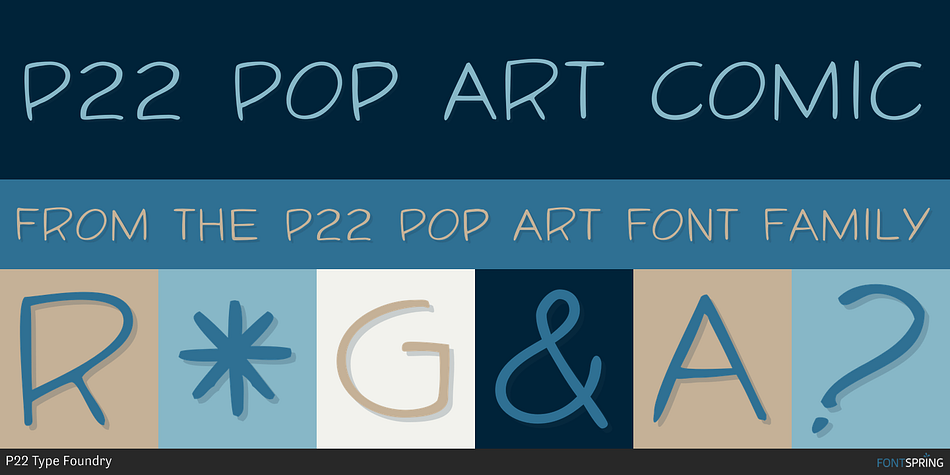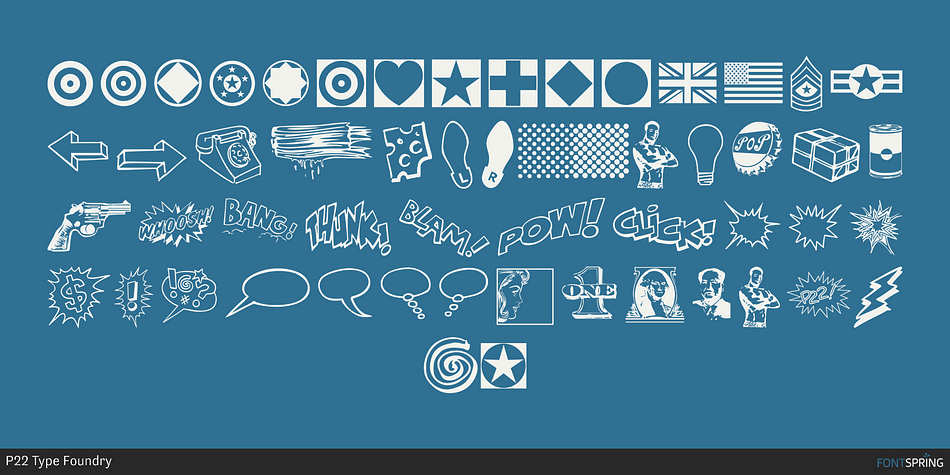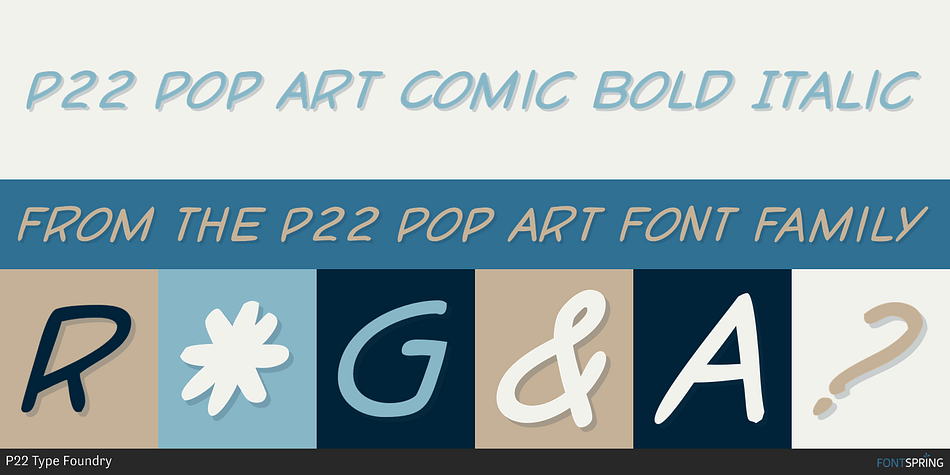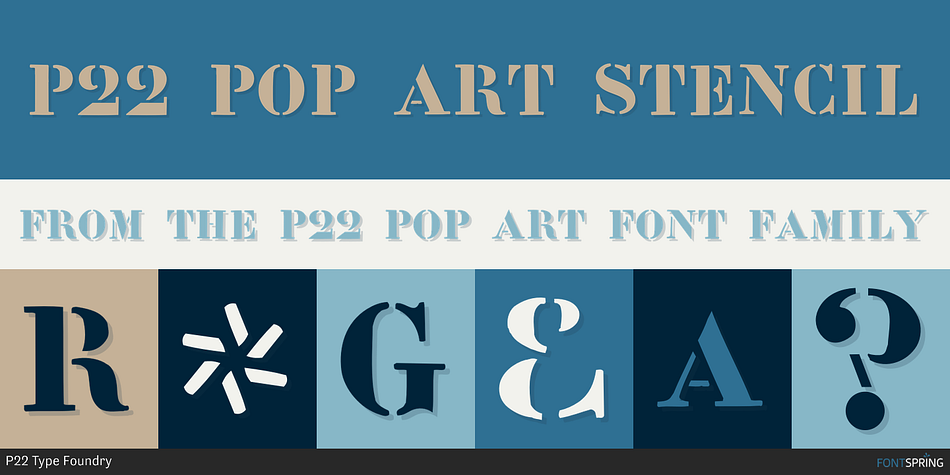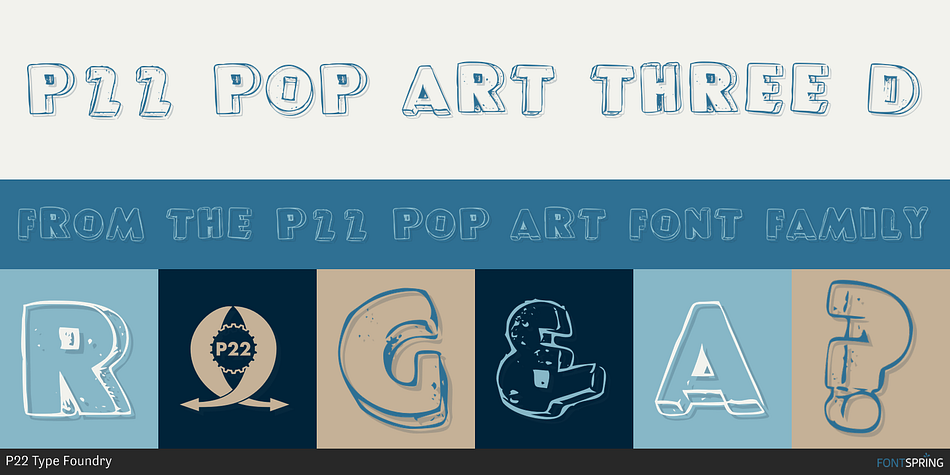
P22 Pop Art is a multiple classification font family. This typeface has five styles and was published by P22 Type Foundry.
This font set was developed for the Albright-Knox Art Gallery and is inspired by their collection of Pop Art. Artists such as Warhol, Lichtenstein, and Rauchenberg sought to blur the lines between high and low art as well as the boundaries between art and everyday life. The alphabets and extras in this set reflect that spirit.
Styles | Comic, Hand Display, Stencil, Dingbat |